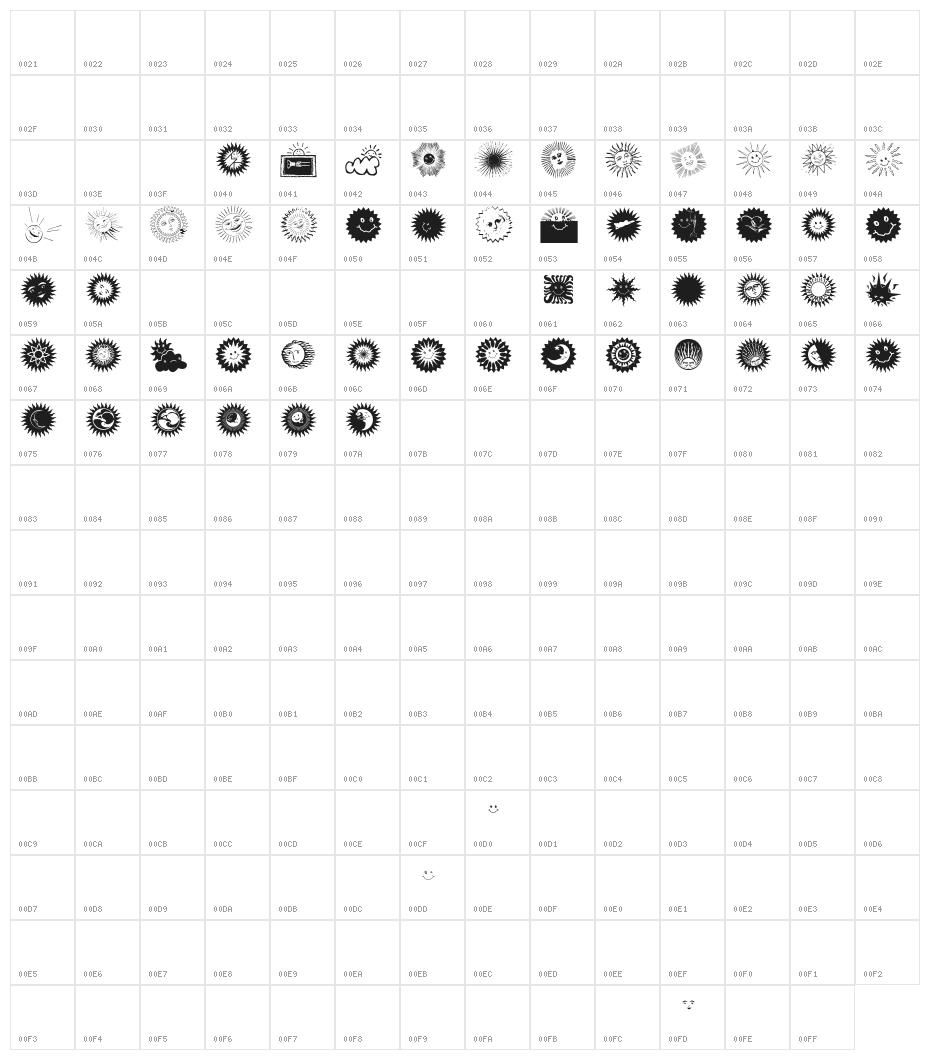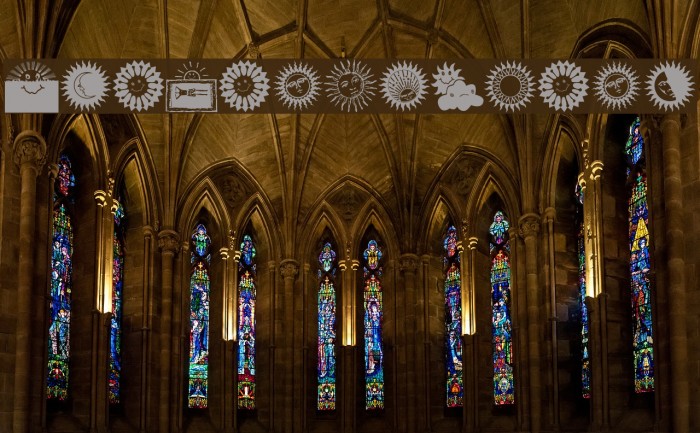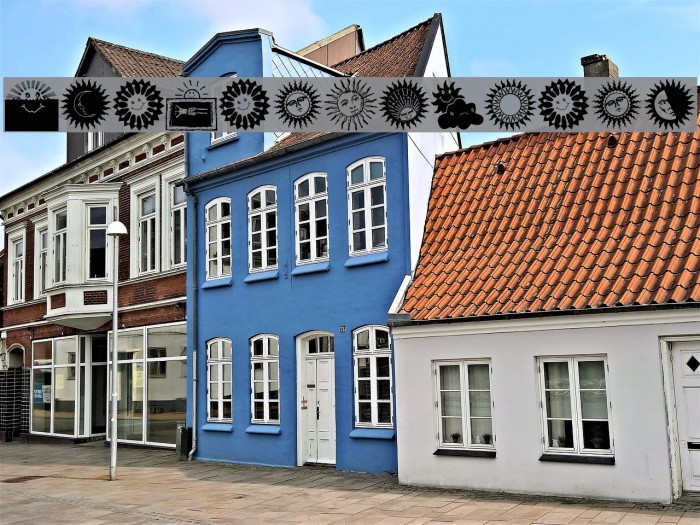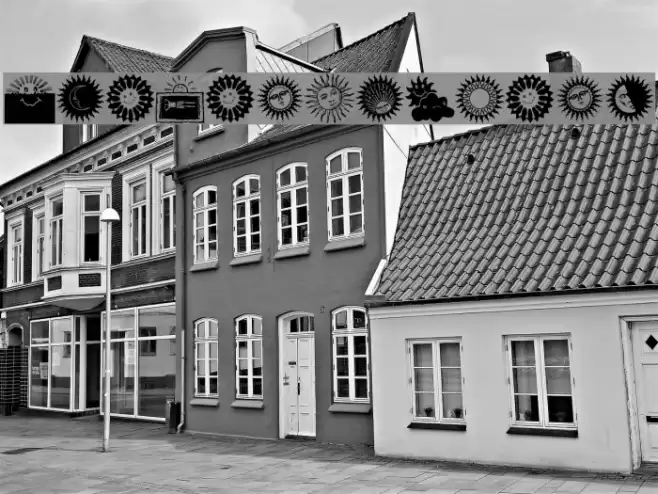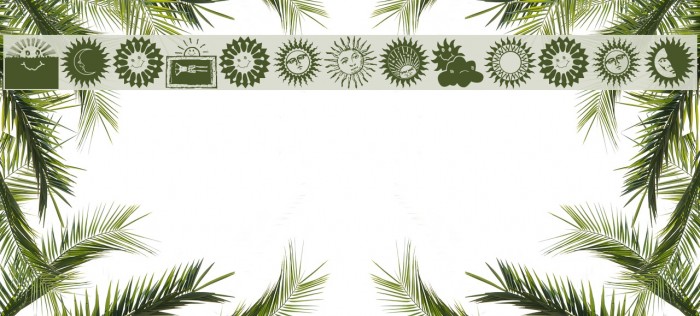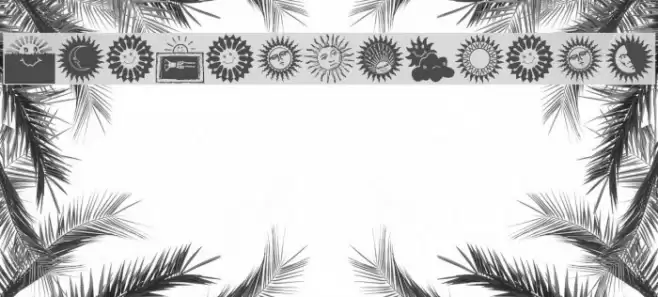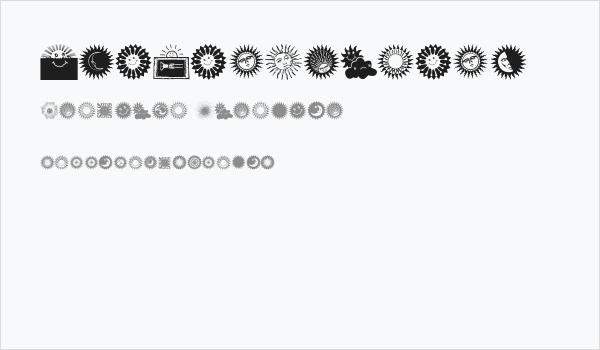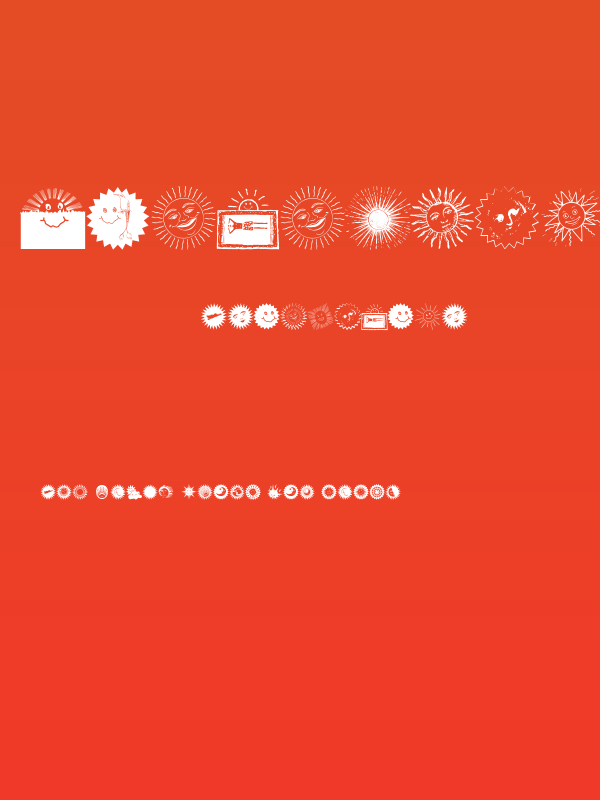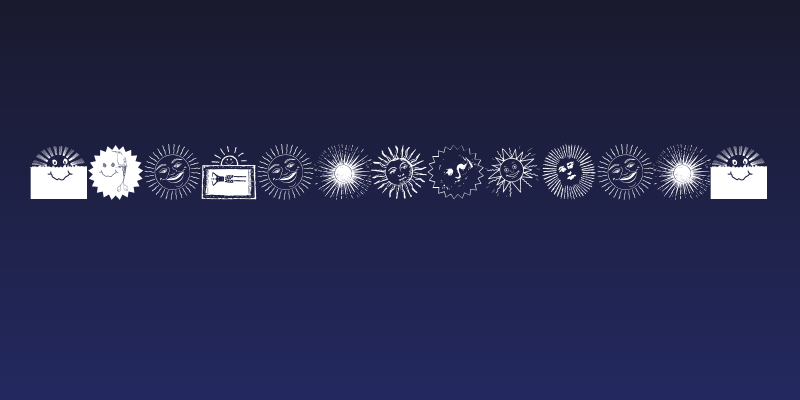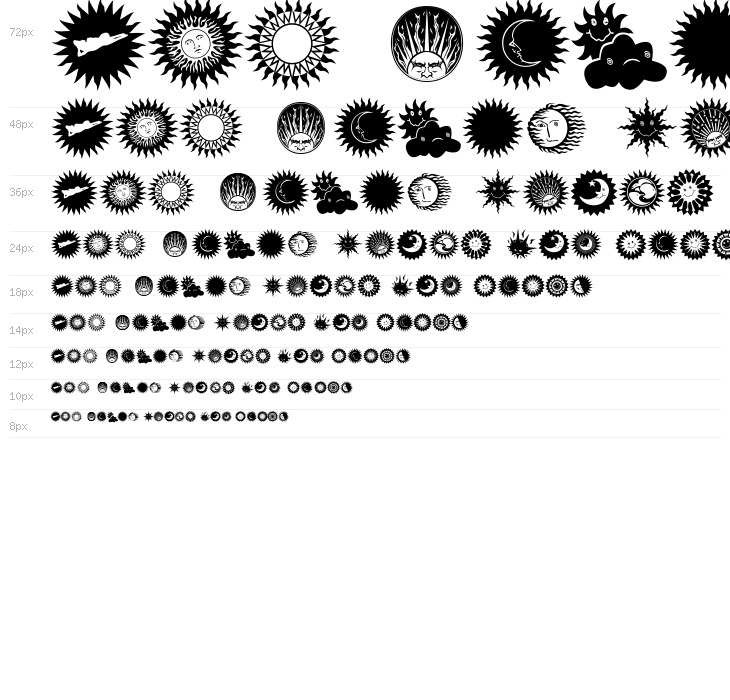
SunAndFriends Font
SunAndFriends Description
A decorative dingbat set featuring a variety of sun, moon, and celestial-themed illustrations with playful, whimsical, and sometimes intricate designs. Each character is a unique pictogram rather than a standard alphanumeric glyph.
| Overall Style | Whimsical, Decorative |
| Use Case | Icons, Decorative elements, Themed graphics |
| Proposed Projects | ChildrenΓ’β¬β’s books, greeting cards, educational materials, decorative borders, scrapbooking, party invitations. |